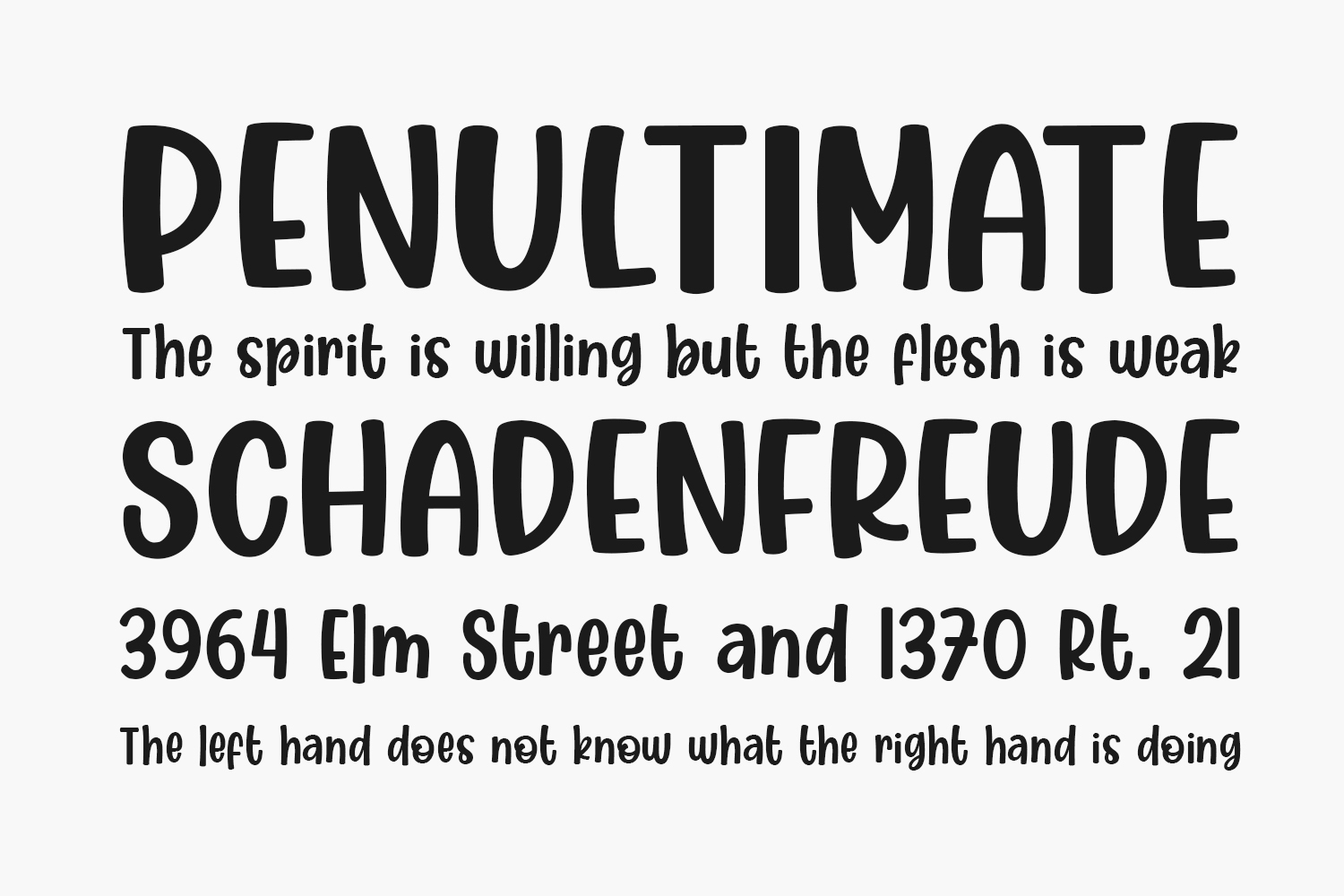
Cafe Matcha Free Font is a sweet and cute display font. This font has a strong yet friendly shape, and as a result, it will match a wide range of informal designs. Cafe Matcha Free Font was designed by Orenari and is free for personal use only. Please purchase the full version for commercial use.
Designed by Orenari